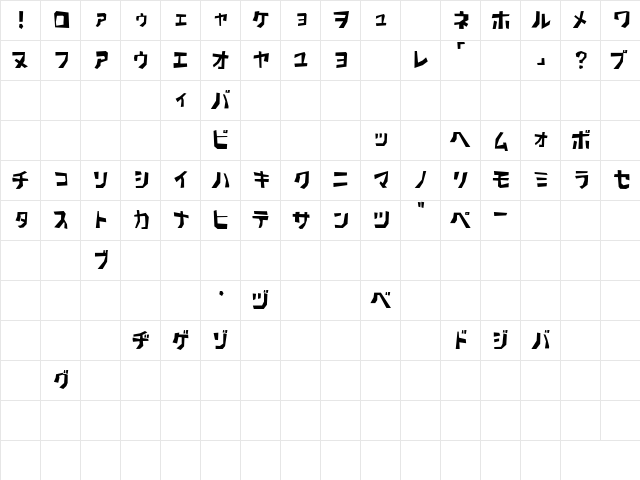
PavementKana Regular
PavementKana is a composed and adaptable typeface that performs quietly and consistently across a wide range of design contexts.